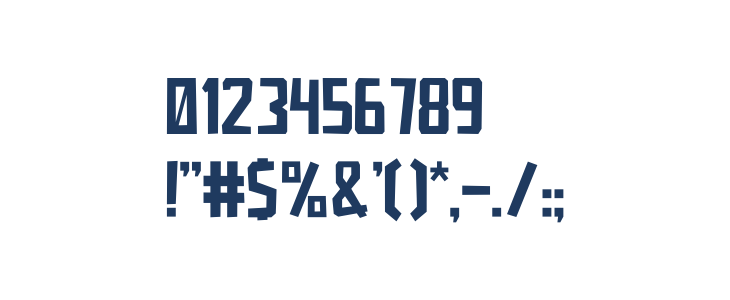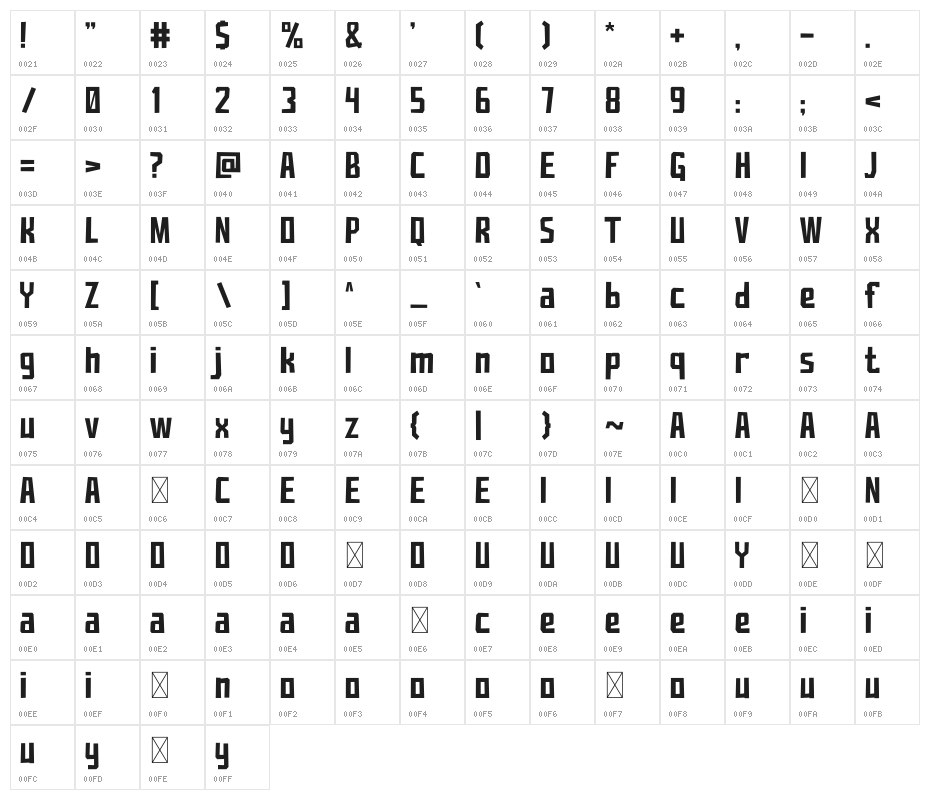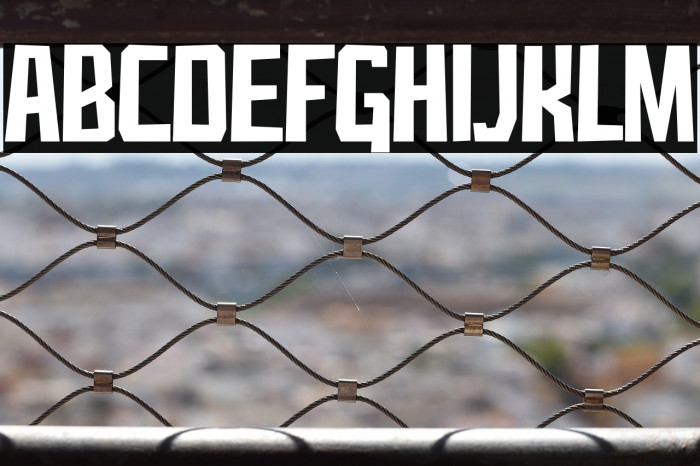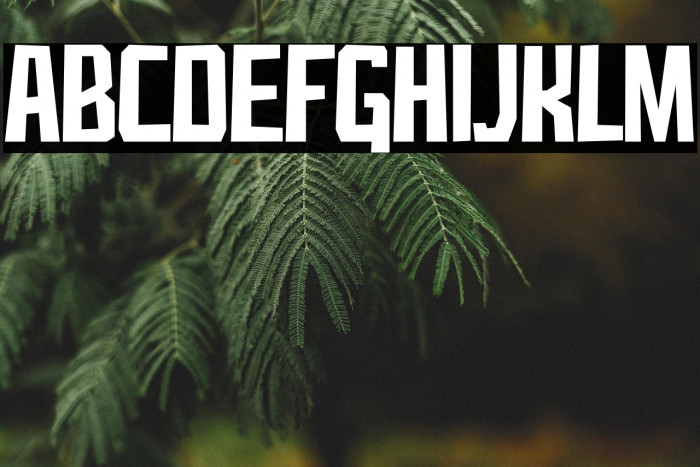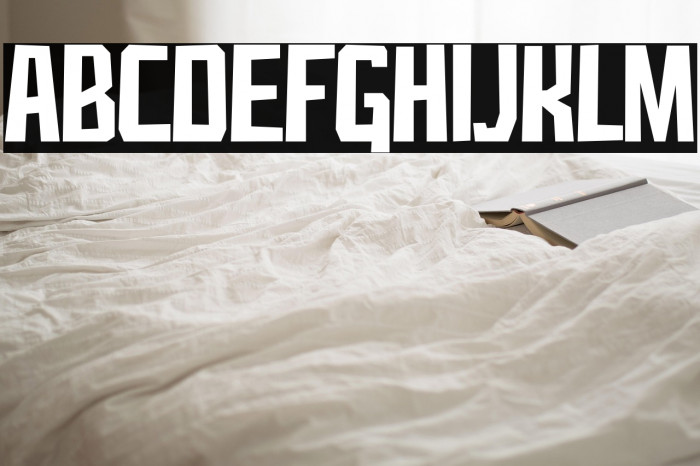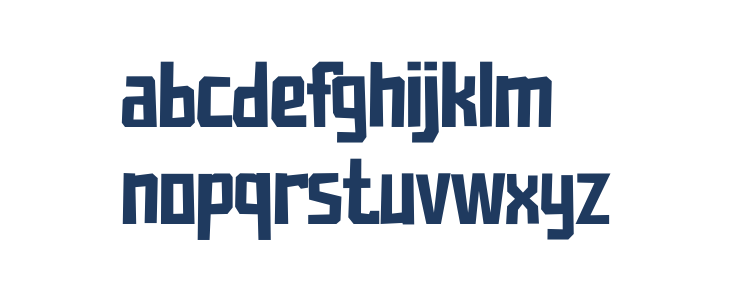
Hawainas Font
Hawainas Description
This font features a bold and geometric style with a strong presence. The characters are blocky and angular, giving it a modern and edgy appearance. The uppercase and lowercase letters maintain a consistent width, creating a uniform look across the text. The numbers and special characters follow the same design principles, ensuring a cohesive visual language. The font's unique style makes it stand out, with its sharp edges and distinct shapes. It is ideal for projects that require a bold statement and a contemporary feel.
| Proposed Projects | Perfect for branding, posters, headlines, and any design that needs a strong, modern impact. |